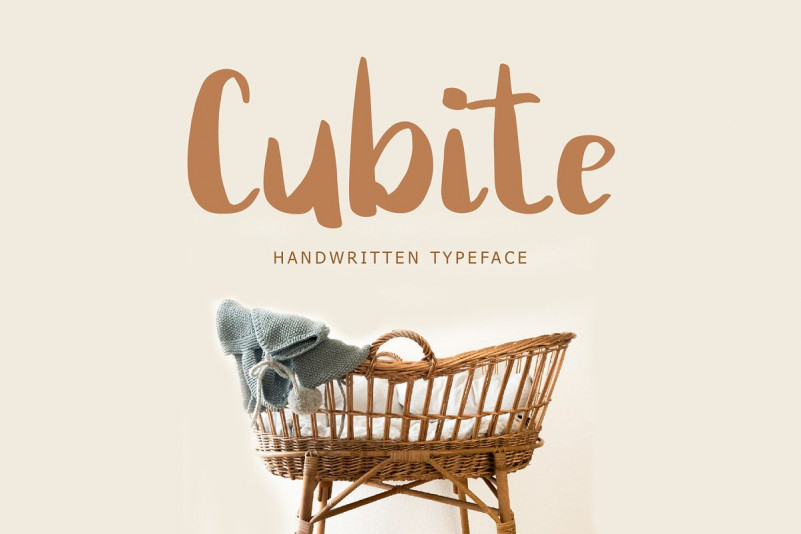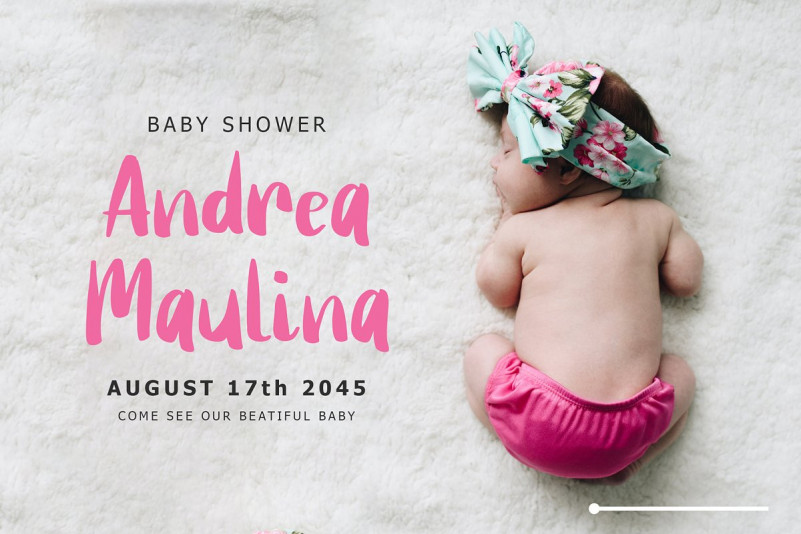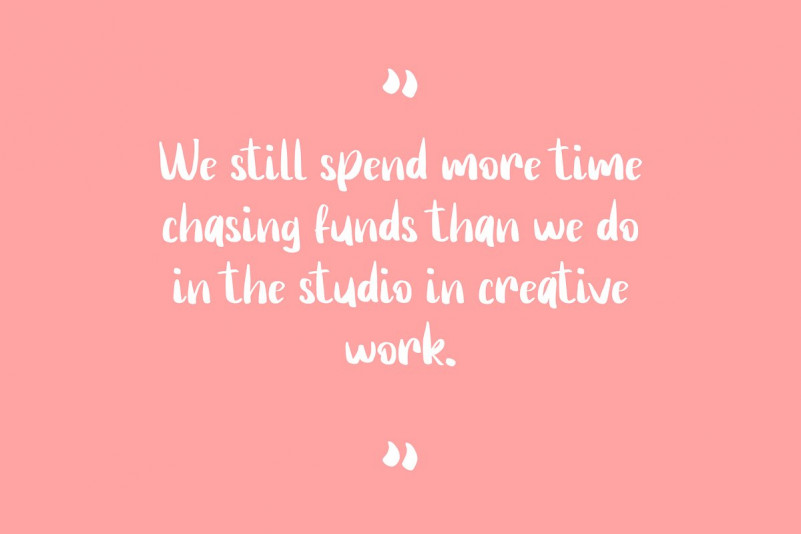
Cubite Font
Cubite Handwritten Brush Font is a Brush effect Script font, can make your text appear playful, excited, and modern!
Cubite is perfect for branding projects, logo, wedding designs, social media posts, advertisements, product packaging, T-shirt design, product designs, label, photography, watermark, invitation, stationery, and any projects.